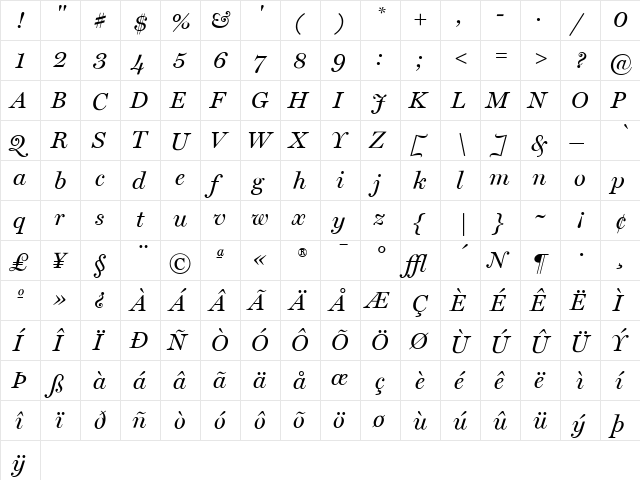
Miller Regular
Design Context for Miller Typeface
Miller takes a measured approach to typography — its balanced proportions and neutral character make it a reliable workhorse for both digital and print work.